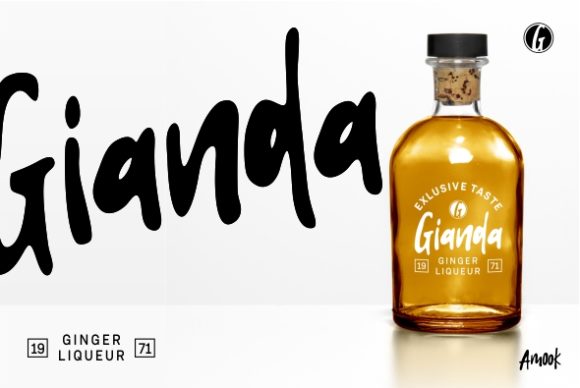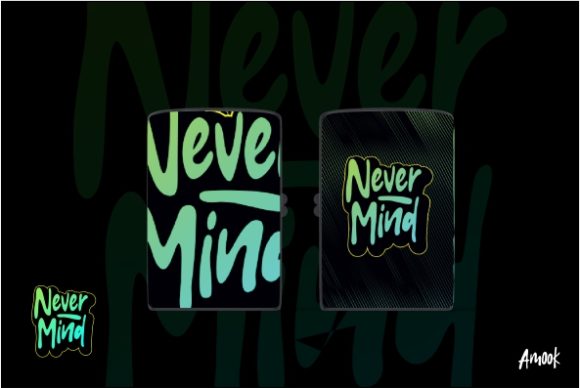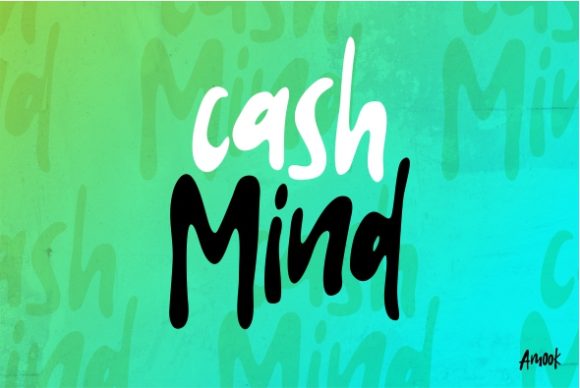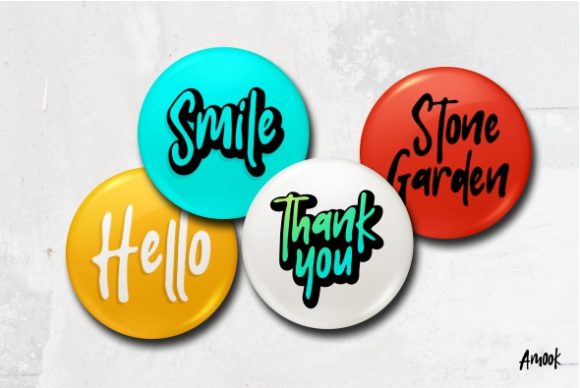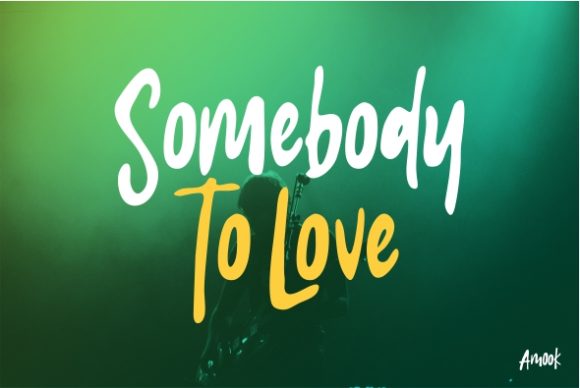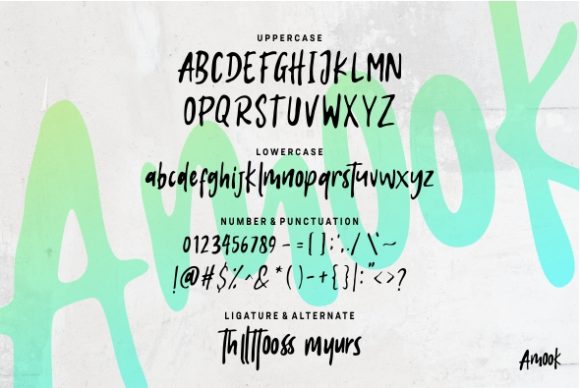
The Amook Font: A Cute and Quirky Display Font to Elevate Your Designs
I’ll never forget the time I was working on a project for a children’s party invitation. I had the design concept all sorted out, but I was stuck on finding the perfect font. I wanted something that would capture the playful and joyful vibe of the party, but everything I tried seemed either too boring or too over-the-top. That’s when I stumbled upon the Amook font. It was love at first sight! 🎉
The Amook font is a cute and quirky display font that adds an incredibly joyful touch to your designs. Its unique and playful style makes it perfect for creative projects that need a bit of personality. In this article, I’ll share my honest review of the Amook font, provide a practical guide on how to use it, and explore similar fonts and alternatives.
My Honest Review of Amook Font
• ✨ Unique and quirky design that adds a touch of personality to your projects
• ✅ Easy to read and understand, even in large and small sizes
• 🎉 Perfect for creative projects, such as party invitations, posters, and social media graphics
While the Amook font is amazing, there are a few things to keep in mind:
• 🤔 The font may not be suitable for formal or professional projects, as it has a playful and informal style
The Story Behind Amook Font
The Amook font was designed by a team of creative designers who wanted to create a font that would bring joy and personality to designs. Inspired by playful and quirky typography, the Amook font was born. With its unique and fun design, it’s perfect for creative projects that need a bit of flair.
Q: What is the Amook font?
A: The Amook font is a cute and quirky display font designed to add a joyful touch to your designs.